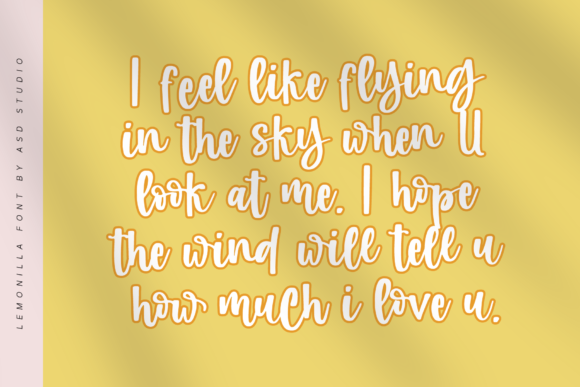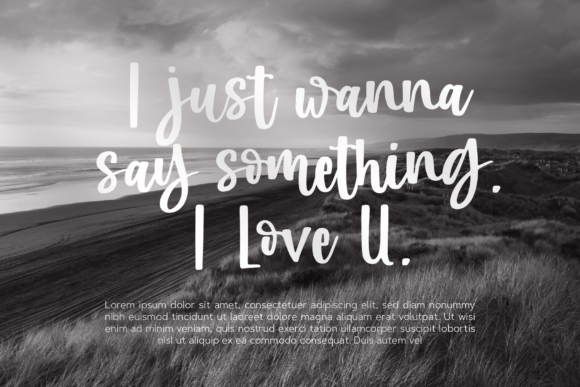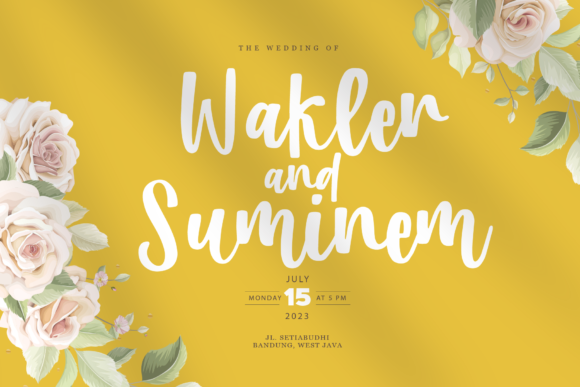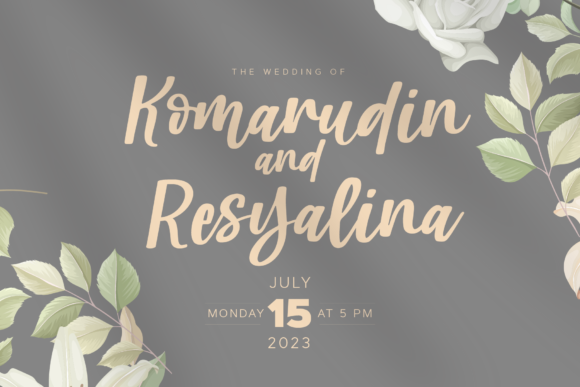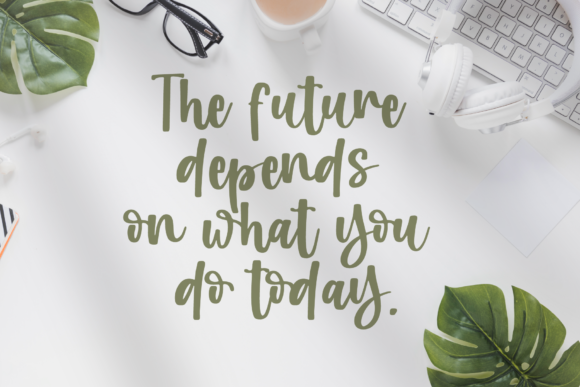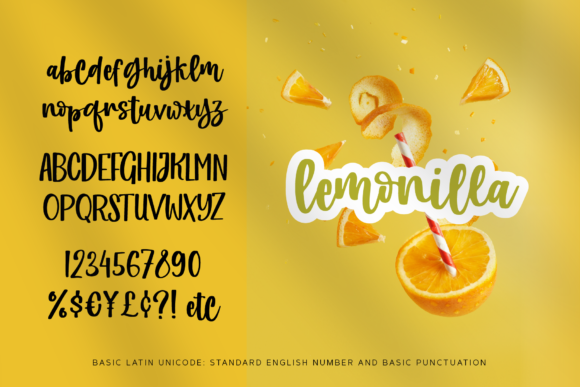
Introduction to Lemonilla Font
Lemonilla is a beautiful and quirky handwritten font.
Whatever the topic, this font will be a wonderful asset to your font library, as it has the potential to enhance any creation Its natural and unique style makes it incredibly fitting to a large pool of designs.
Lemonilla Font offers exceptional quality and versatility, making it a valuable addition to your design toolkit. Whether you’re creating for personal projects or commercial use, Lemonilla Font delivers professional results.